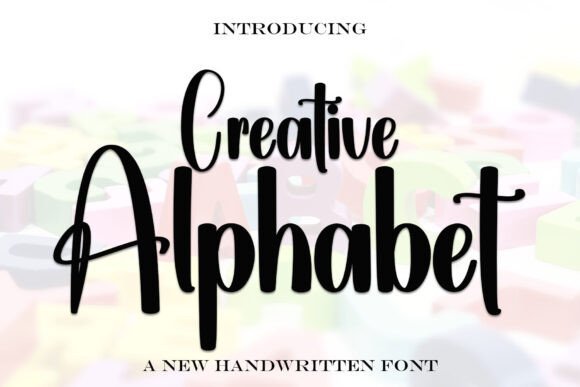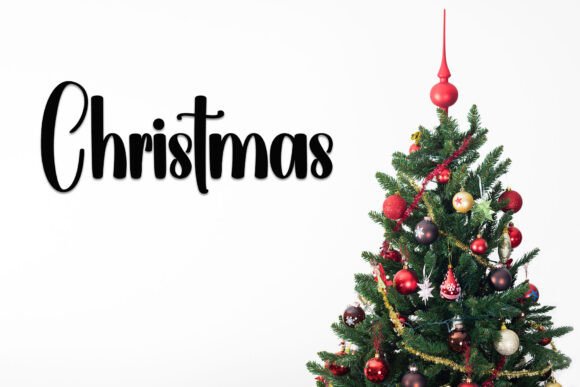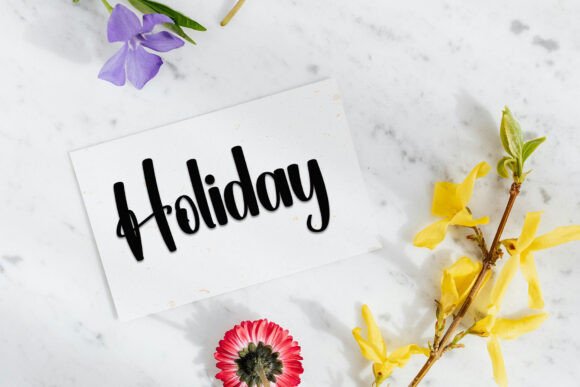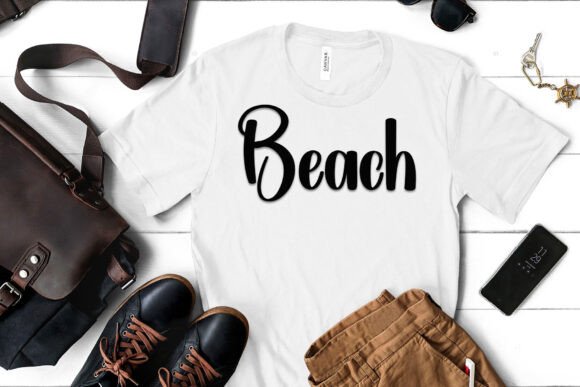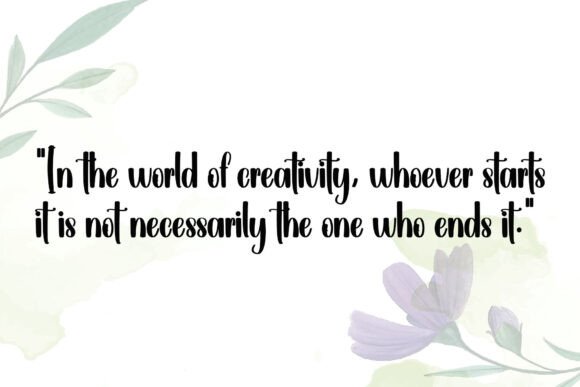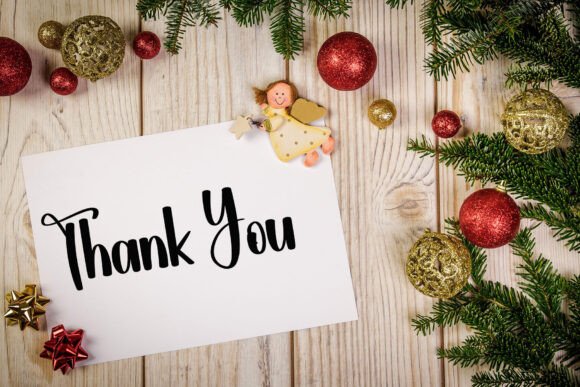
The Art of Typography: Unleashing Your Creativity with the Creative Alphabet Font
Remember that moment when you stumbled upon the perfect font for your design project? The excitement, the thrill of finally finding the perfect match for your creative vision? That’s what we’re about to explore with the Creative Alphabet Font – a handwritten masterpiece that will elevate your designs to new heights.
With its timeless classic calligraphy inspiration and contemporary atmosphere, the Creative Alphabet Font is the perfect addition to any design project. Whether you’re working on a branding campaign, a marketing brochure, or a social media graphic, this font will add a touch of elegance and sophistication that’s hard to resist. As a designer, you’ll appreciate the versatility and expressiveness of the Creative Alphabet Font, making it an invaluable tool in your creative arsenal.
Creative Alphabet Font Key Features
- Unique Characteristics: The Creative Alphabet Font features a playful, hand-drawn style with intricate details and flourishes, making it perfect for adding a touch of whimsy to designs.
Designer Review: Creative Alphabet Font
Overall, I think the Creative Alphabet Font is a great addition to any designer’s toolkit. Here are some things that really stand out to me: ✨
- Unique Character Shapes: The font features some truly unique character shapes that are sure to add a touch of whimsy to any design.
- Good Legibility: Despite the creative twists on traditional letterforms, the font remains easy to read, even at smaller font sizes.
- Large Character Set: The font includes a wide range of characters, including numerals, punctuation marks, and special characters.
However, there are a few limitations to keep in mind: ⚠️
- Limited Support for Special Characters: While the font includes a wide range of characters, some special characters may not display properly in certain contexts.
- No Italic or Bold Weights: The font is available in a single weight, which may limit its versatility in certain design applications.
Overall, I think the Creative Alphabet Font is a great choice for designers looking to add a touch of creativity to their work. With a little bit of caution around special characters and font weights, it’s a great addition to any designer’s toolkit.
Tips for Getting the Most Out of Creative Alphabet Font
Use the Creative Alphabet Font in combination with other fonts to add visual interest.
Consider using the Creative Alphabet Font for titles, headings, or emphasis.
Use the Creative Alphabet Font for:
Birthday invitations and cards
Wedding invitations and decorations
Party and event branding
Children’s educational materials
Alternatives to Creative Alphabet Font for Designers
Great Vibes is a modern and elegant script font perfect for adding a touch of sophistication to your designs. It’s ideal for use in invitations, wedding stationery, and other high-end branding materials. Great Vibes is more refined and polished compared to Creative Alphabet Font, which has a more playful and whimsical feel.